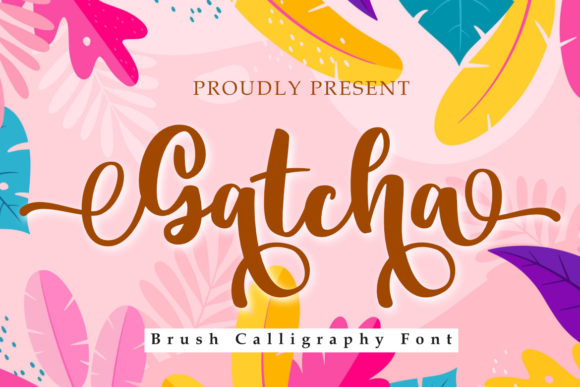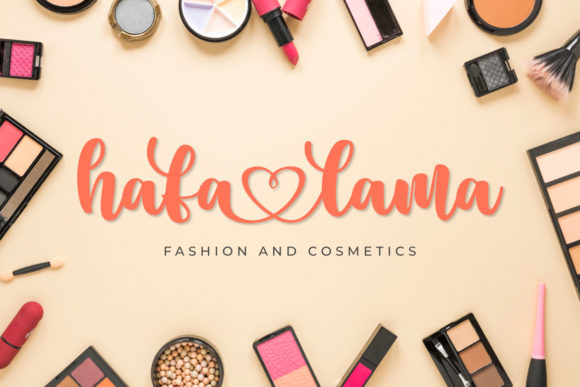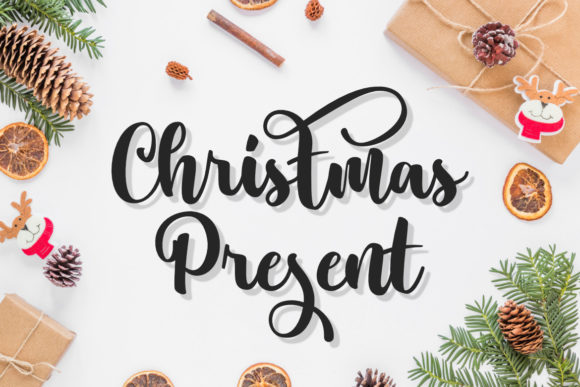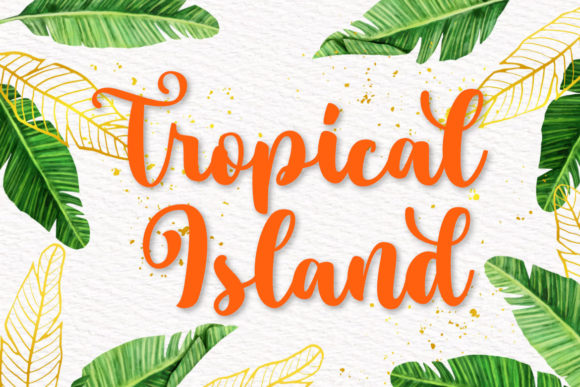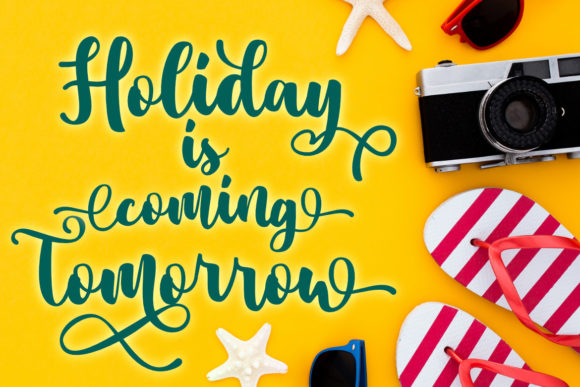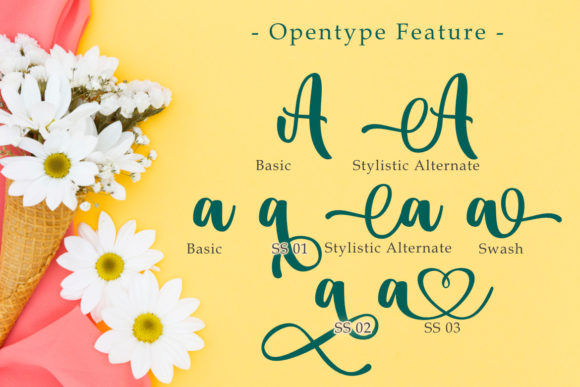
About Gatcha Font
Gatcha is a beautiful and sweet handwritten font. It is fresh, clean, and elegant. This font will look amazing in a great amount of projects, both formal and informal. This font is PUA encoded which means you can access all of the glyphs and swashes with ease!